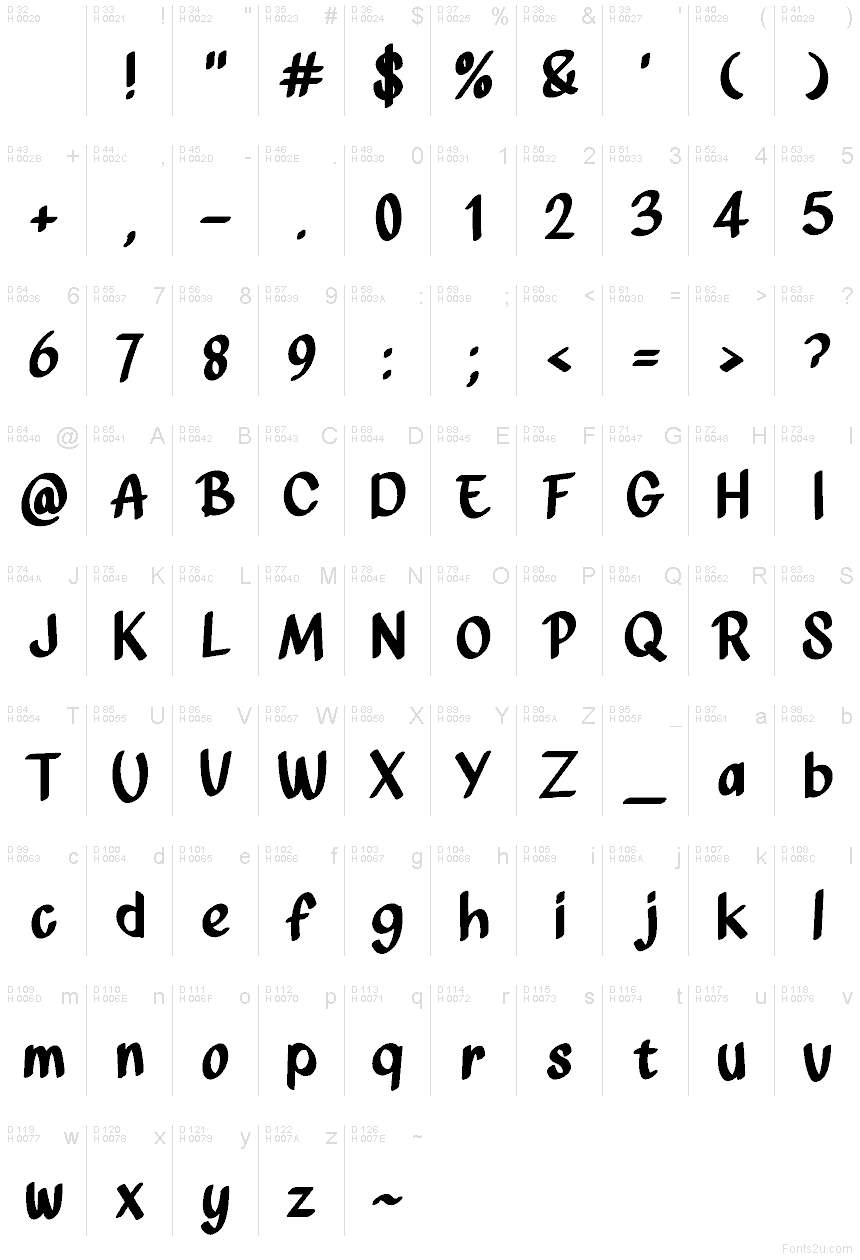
Jembaro
Jembaro font is a handwritten typeface created by Aji Waluyo. With its smooth, organic flow and casual vibe, this font carries a modern feel and friendly aesthetic. Perfectly imperfect with subtle variations, this free typeface has a natural handwritten look that effortlessly balances simplicity with elegance to create impactful designs that truly connect.